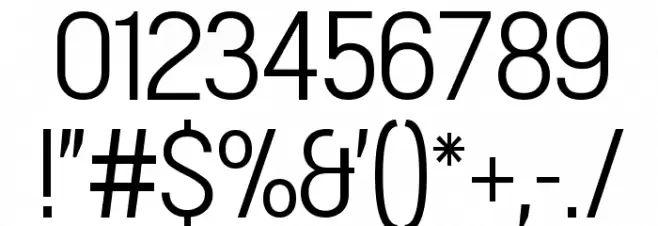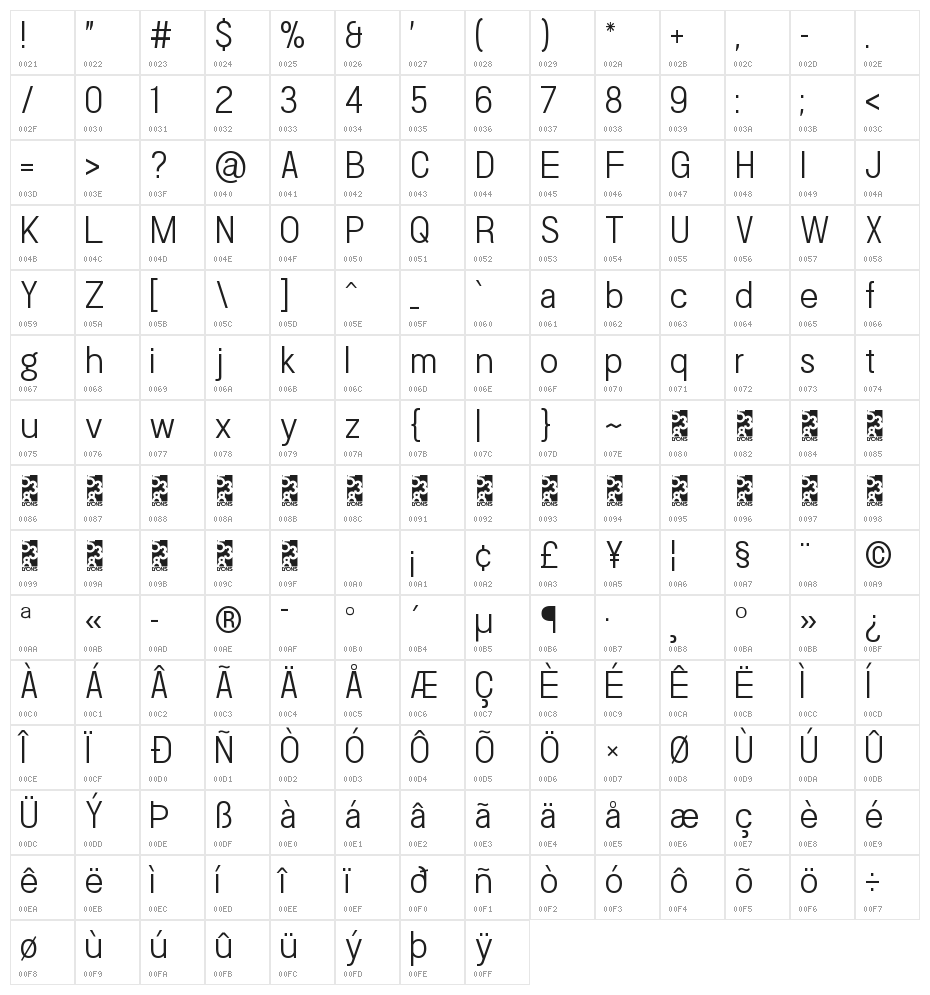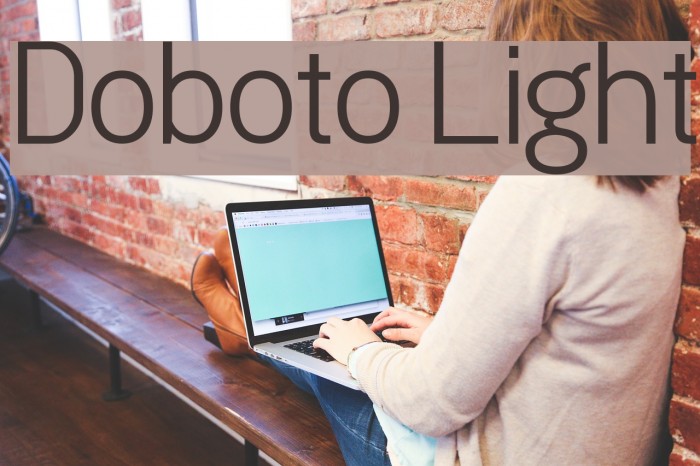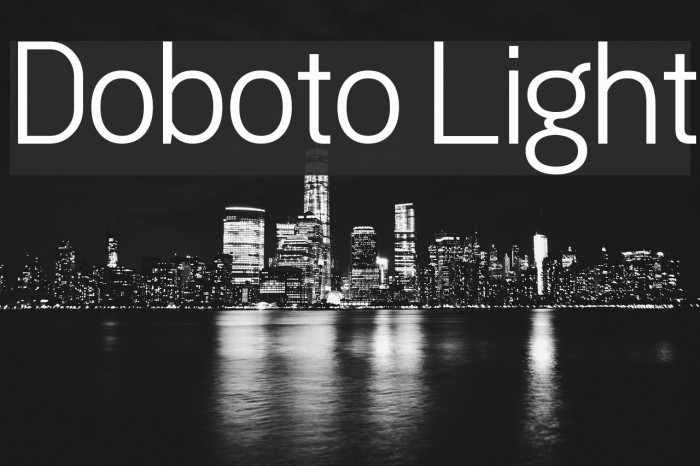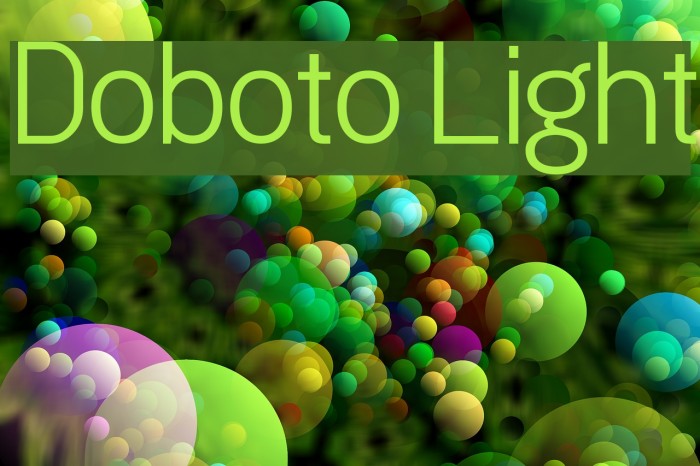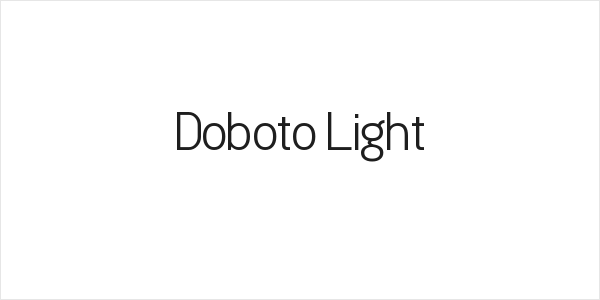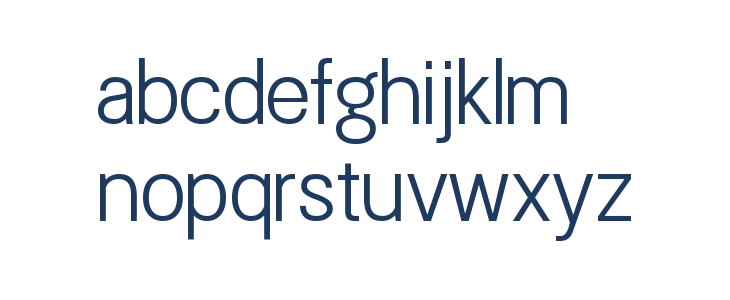
Doboto Light Font
Doboto Light Description
This font features a clean and modern sans-serif design with a light weight, making it ideal for minimalist and contemporary projects. The characters are evenly spaced with a normal width, providing excellent readability. The uppercase and lowercase letters maintain a consistent style, with smooth curves and straight lines that convey a sense of simplicity and elegance. The numerals are clear and distinct, matching the overall aesthetic of the font. Special characters are well-integrated, ensuring versatility in various applications. The font's low contrast in stroke thickness contributes to its sleek and unobtrusive appearance, making it suitable for both digital and print media.